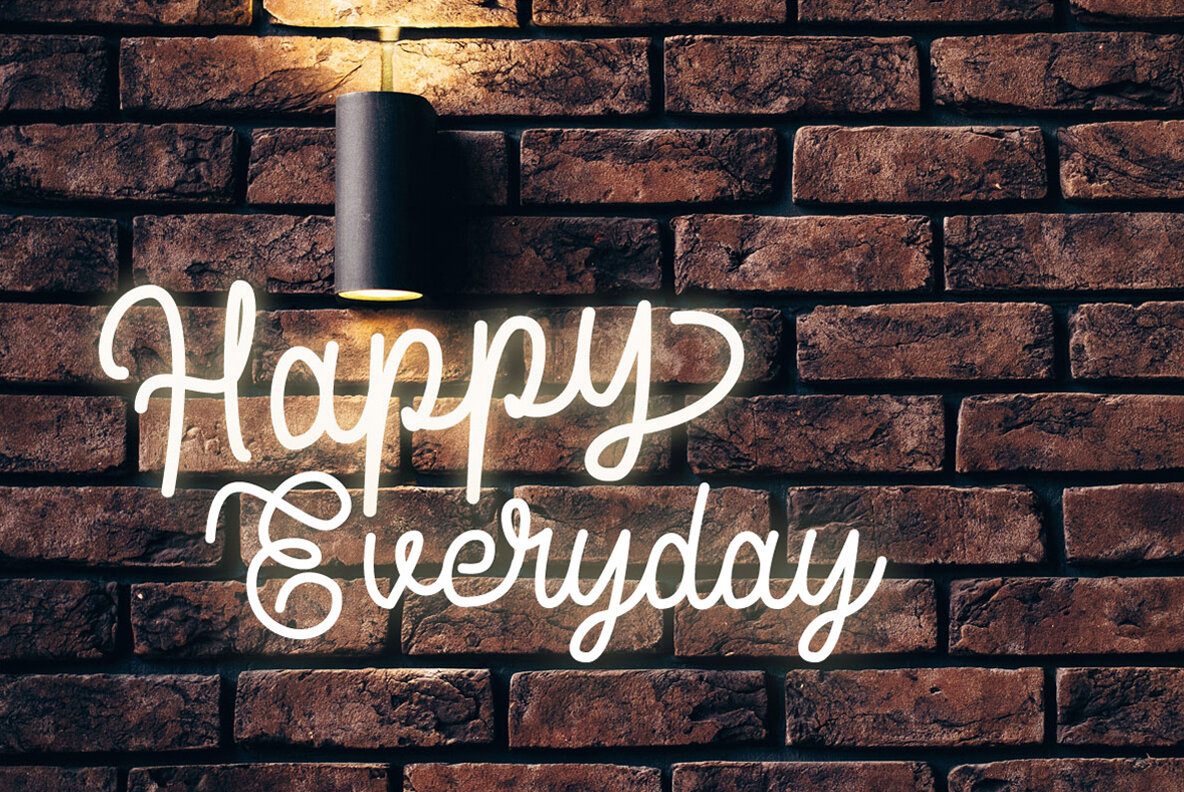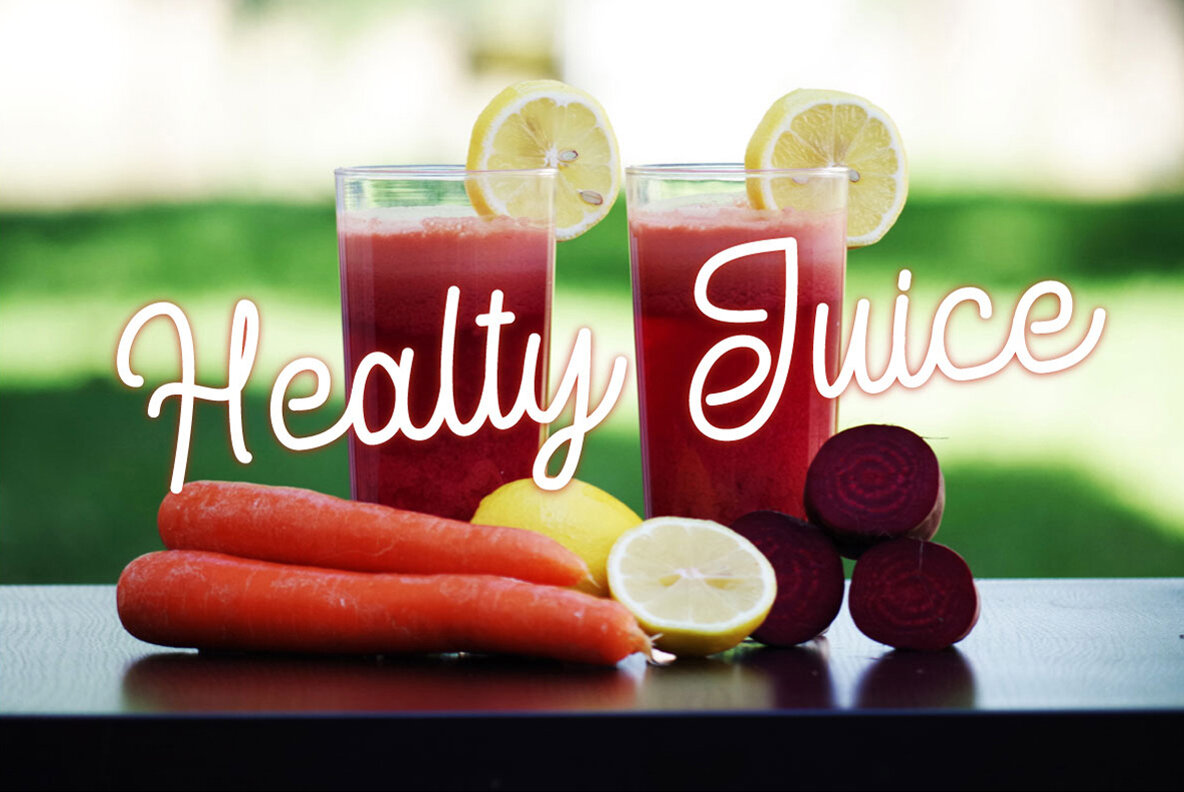
Delponta Monoline Script: Elegance Meets Simplicity
With its graceful curves and seamless consistency, Delponta Monoline Script captures the essence of simplicity and elegance. Ideal for a range of projects, the font’s readable design makes it perfect for vintage stationery, food and drink posters, logotypes, wedding invitations, neon-style designs, watermarks, and quotes.
• Delponta Monoline Script available in 377 glyphs
• Multilingual support with extensive glyphs, including characters for Afrikaans, French, German, and more